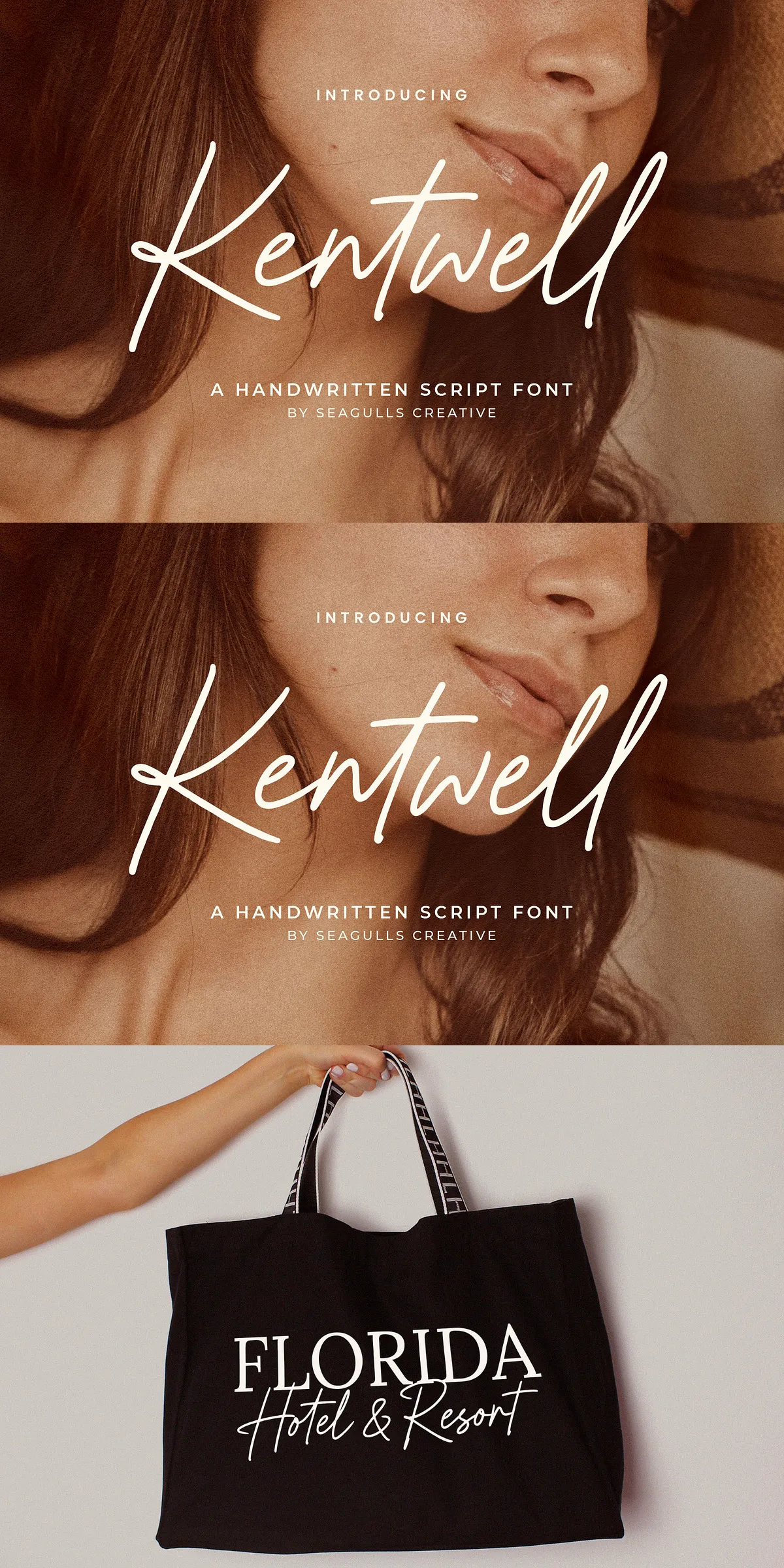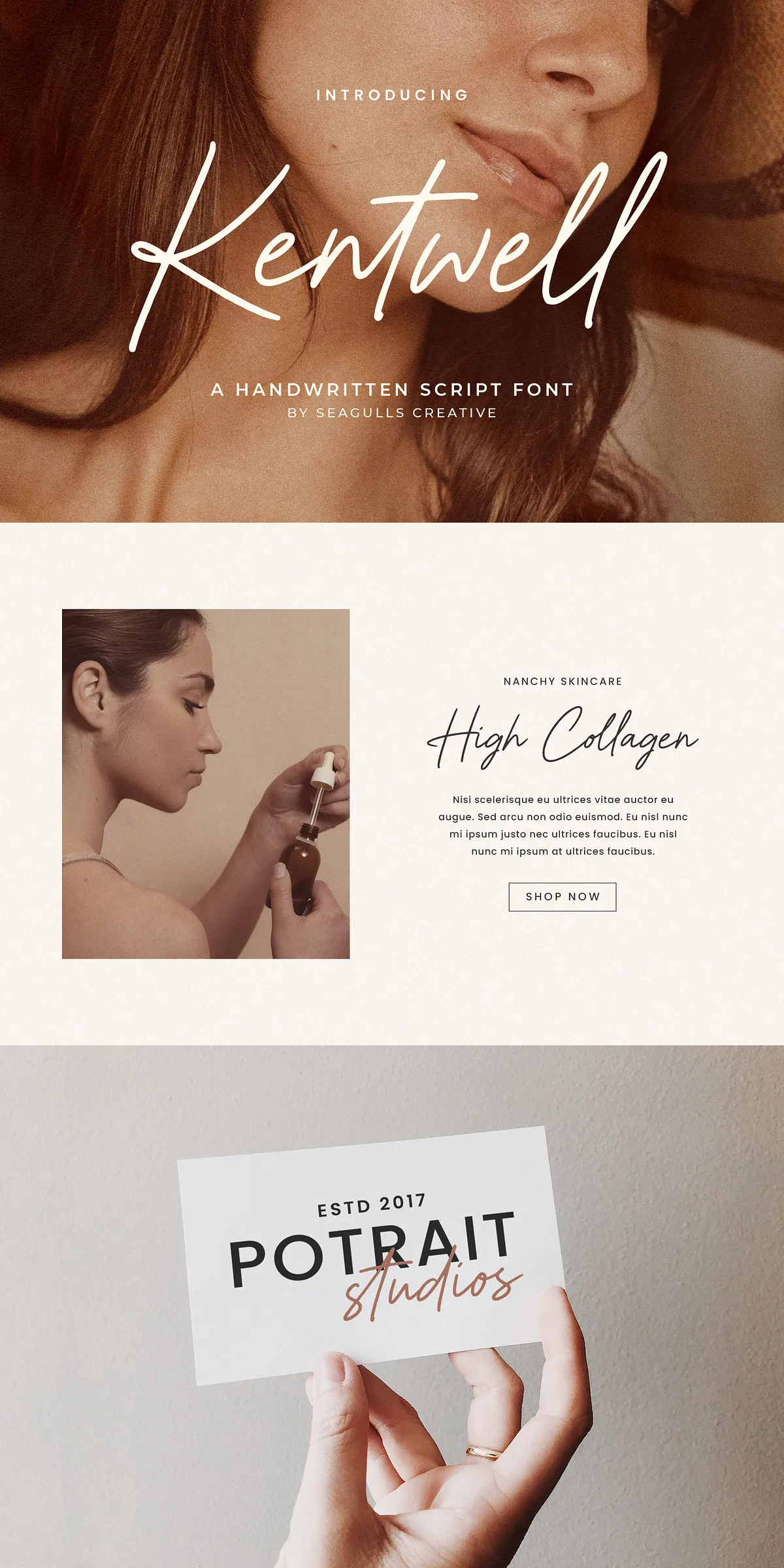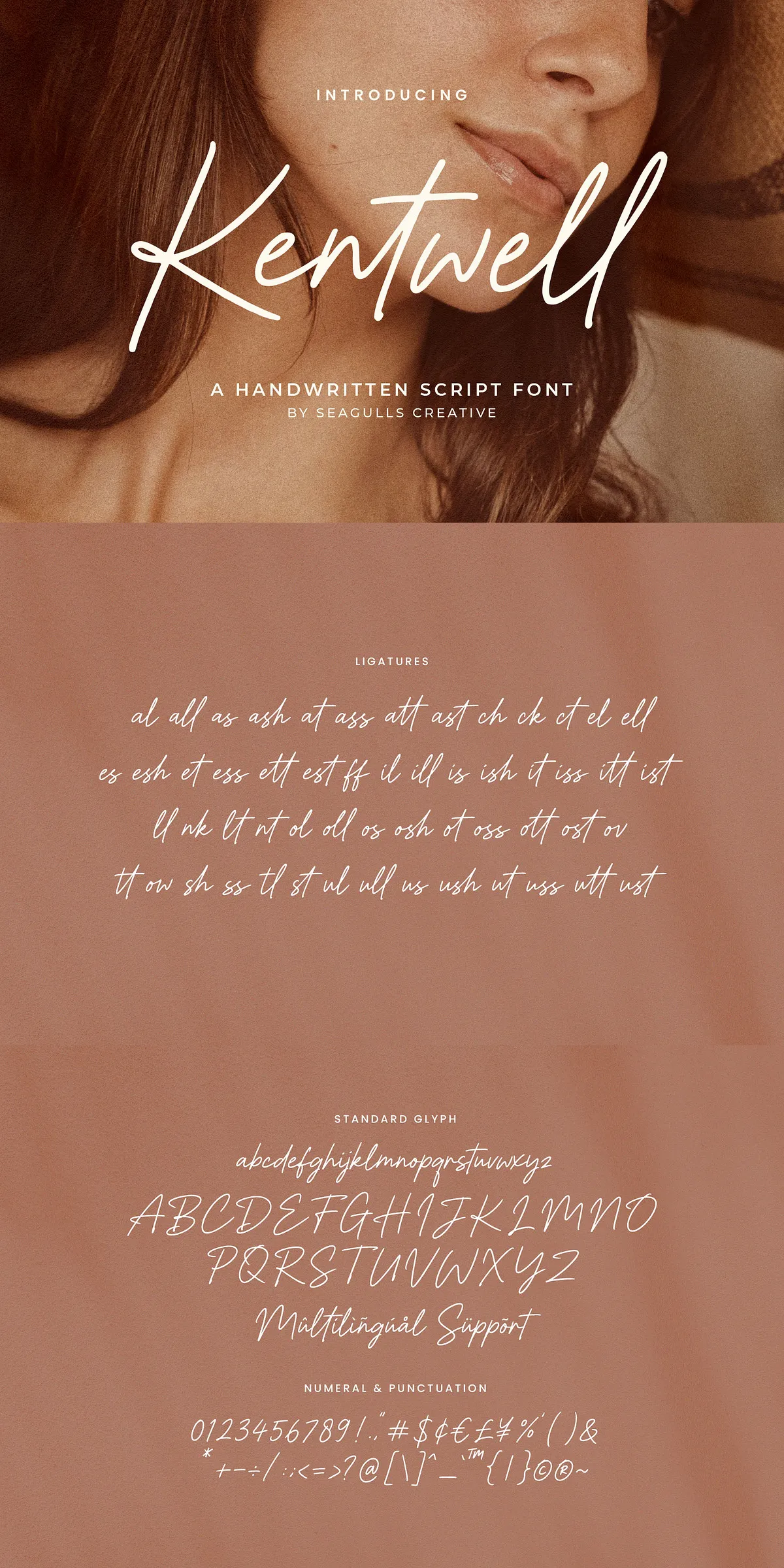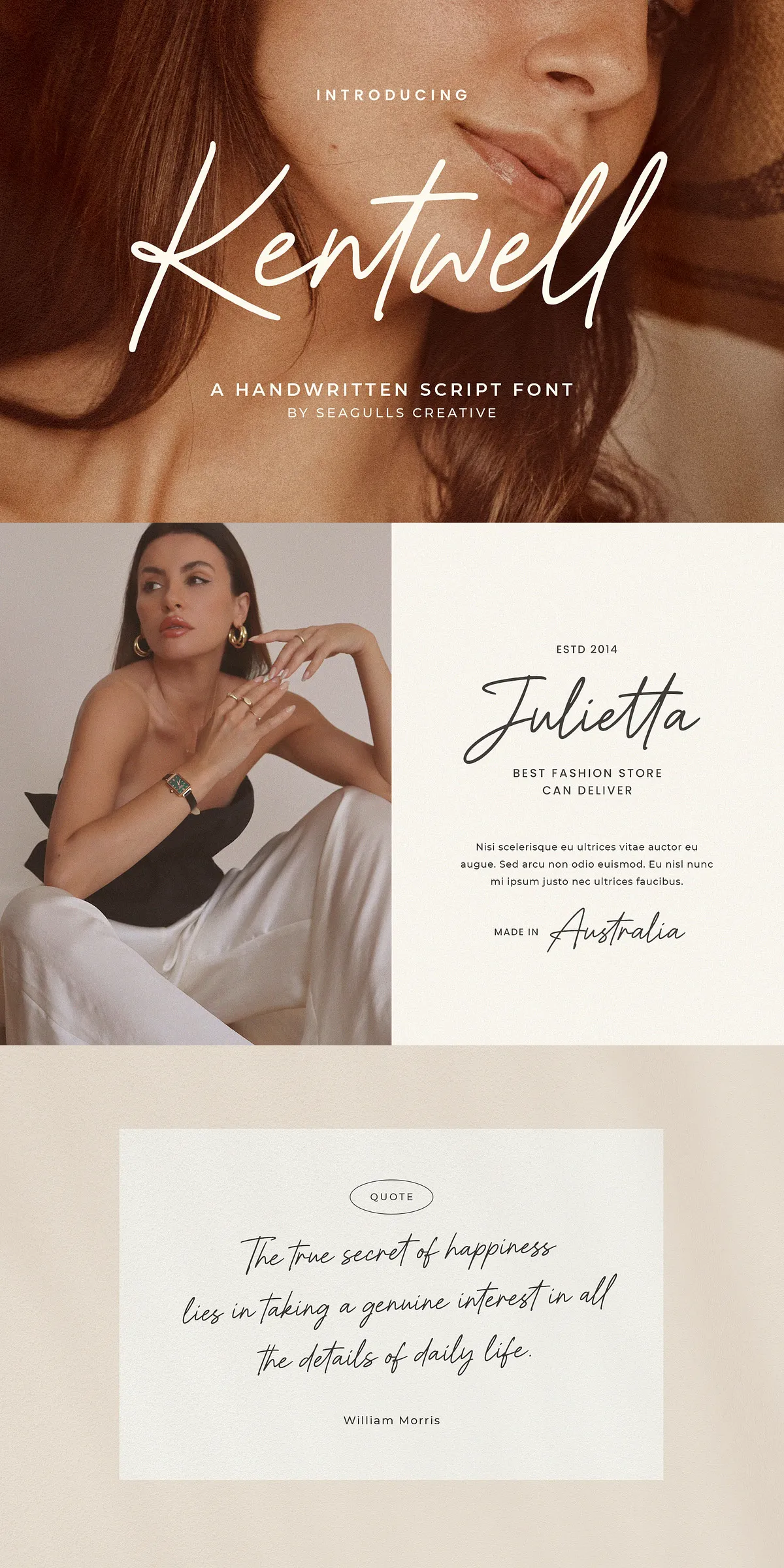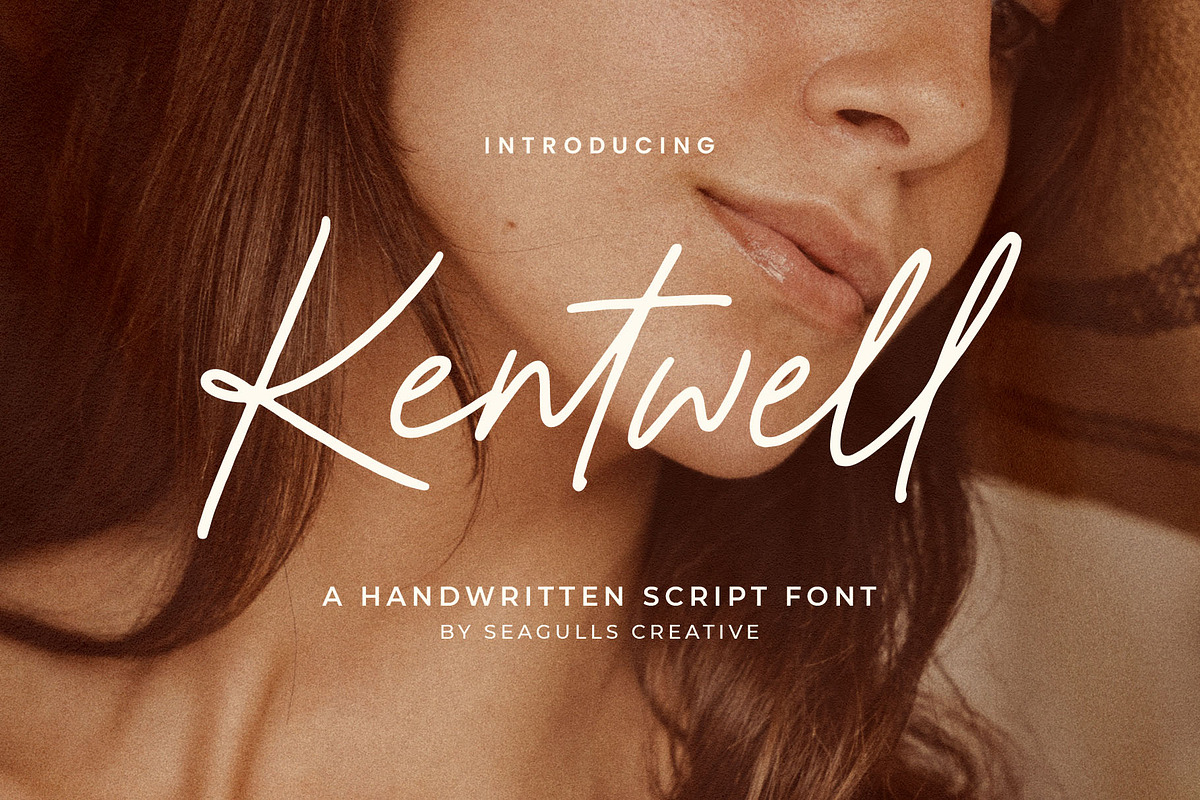
Kentwell is a beautifully crafted handwritten font designed to bring a fresh and contemporary look to your creative projects. This modern font stands out with its stylish, organic feel, making it an excellent choice for a wide range of applications. Whether you are working on branding, labels, photography, invitations, or wedding designs, Kentwell provides a versatile and elegant solution that enhances your designs with a natural, handwritten charm.
Wide Range of Practical Applications for Kentwell Font
The flexibility and attractiveness of Kentwell make it a perfect fit for various creative projects. It is widely used in the fields of branding and product packaging, where it lends a personal touch that captures attention and conveys authenticity. Additionally, Kentwell works wonders for stationery and social media posts, infusing text with warmth and personality. Its stylish appearance also complements wedding design and invitations, creating memorable and heartfelt impressions that resonate with viewers.
Ideal for Branding and Packaging
Brands looking to establish a distinctive and approachable image can greatly benefit from Kentwell’s handwritten aesthetic. The font adds a handcrafted quality that enhances product labels and packaging designs, helping products stand out in competitive markets. Its natural style aligns well with artisanal or boutique products, making it easier for marketers to connect with target audiences who value authenticity and craftsmanship.
Enhance Invitations and Stationery Design
Kentwell enhances wedding invitations, greeting cards, and other stationery by offering a beautiful handwritten style that feels personal and curated. The font’s smooth, flowing letterforms make invitations inviting and distinctive, setting the tone for special occasions with elegance and warmth. This usage expands into social media promotions as well, where the font grabs attention and reinforces brand storytelling.
Comprehensive Character Set and Multilingual Support
The font package includes an extensive collection of letters, numbers, symbols, punctuation marks, and ligatures, equipping designers with the elements necessary for diverse projects. Additionally, Kentwell supports multiple languages, which significantly broadens its application scope worldwide. From English to other languages with accented characters, the font maintains both clarity and style, making it globally relevant.
Why Choose Kentwell for Your Next Project
Kentwell Font combines beauty, functionality, and simplicity, making it a powerful tool for anyone looking to elevate their design work. Its handwritten style offers an organic, approachable feel while maintaining professionalism and clarity. The font’s adaptability across different project types and languages, paired with its easy installation and usage, makes it a top choice for creative professionals and hobbyists alike.
With Kentwell, you gain a font that actively enhances your visual storytelling, providing a unique style element that brings personality and sophistication to designs. From branding and packaging to invitations and digital content, Kentwell is an invaluable asset that transforms ordinary text into memorable artistry.